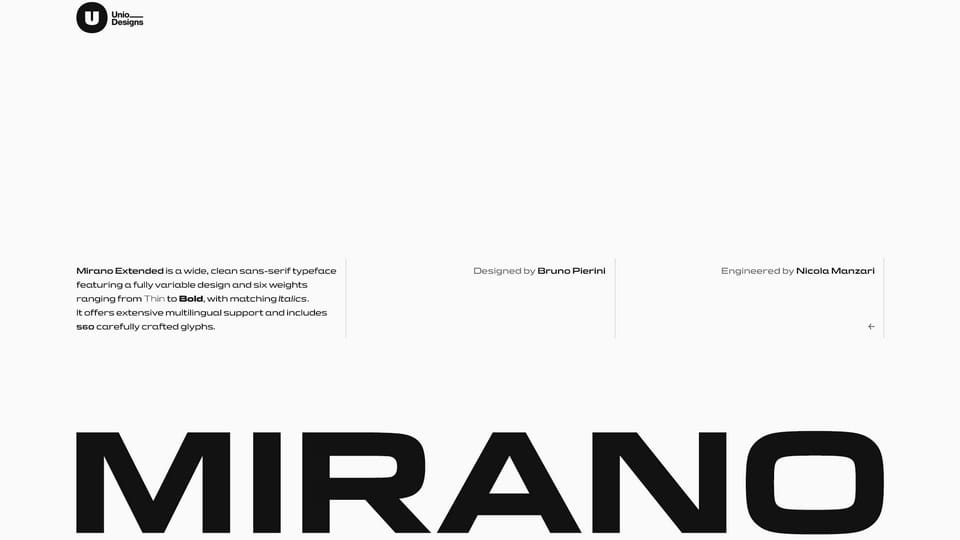
Download Mirano font, a variable typeface that channels the charm of automotive history into a crisp, contemporary voice. It starts from a very specific reference: the iconic lettering associated with the most famous German “star” brand.
Designer: Unio Creative Solutions